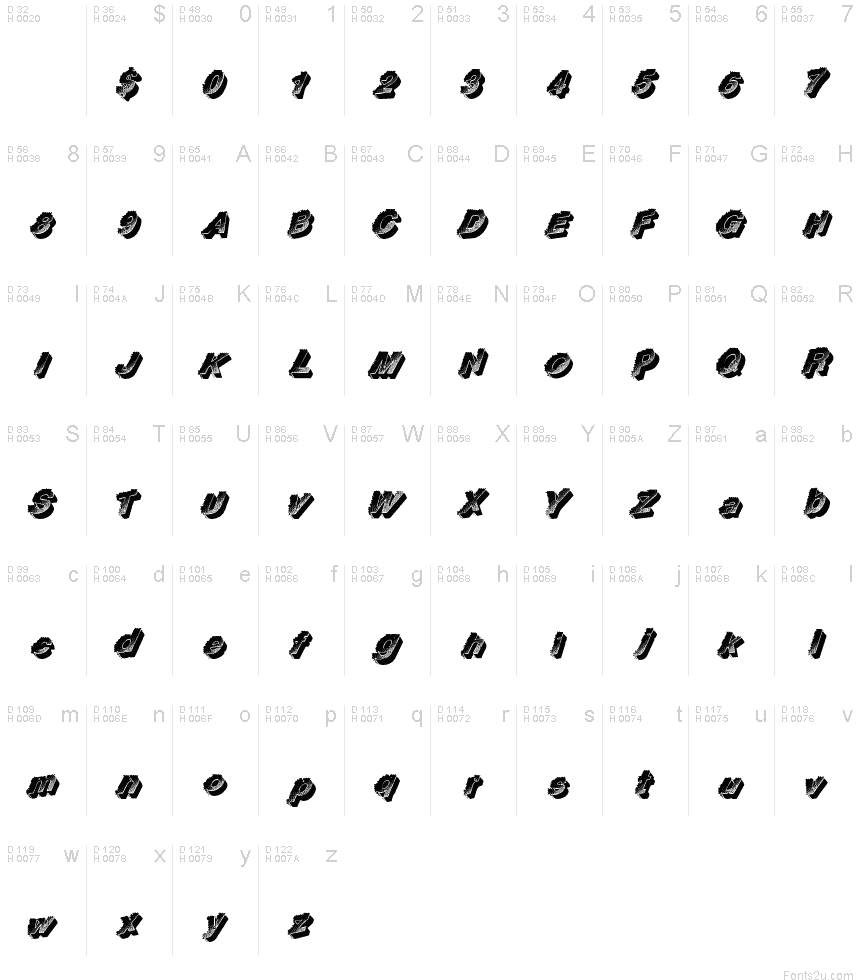
Racing Flow by Xerographer Fonts is a free eroded 3D display font shaped by the forward lean, broad proportions, and pointed cuts of custom motorsport lettering. Its rough halftone shadows resemble worn screen printing.
Fans of racing culture and loud street graphics will find it suited to event posters, team merchandise, and arcade game title cards, where its staggered depth adds speed to the lettering. These uses are linked by a taste for bold, physical graphics, and the scraped dots let the type become part of tire-smoke textures, distressed emblems, or race-day illustration.